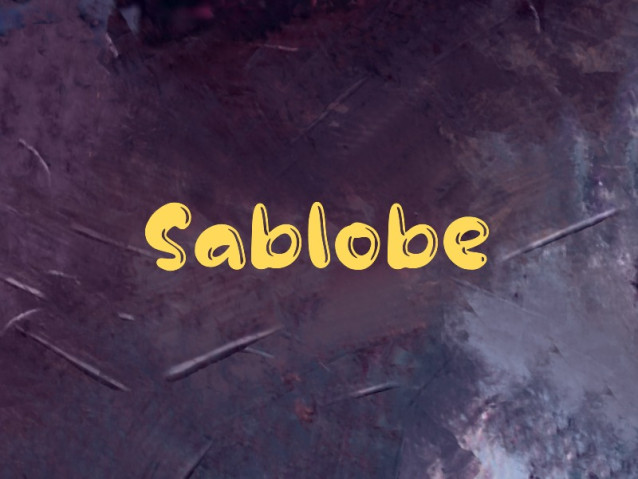
Sablobe Font
Sablobe Font is a simple and modern display font suitable for quotes, logos, headings, titles, and many more. Use it on any of your creative projects, and your designs will become outstanding!